Summer-themed fonts should feel fun, breezy, and bright. They work best on social media, posters, brand packaging, and banners. These fonts often feature handwritten, retro, or decorative styles that reflect joy and warmth. Below, you’ll find 11 options that radiate seasonal charm. Each one includes strengths, limitations, and ideal use cases.
1. Funkies Surfer (Modern Psychedelic)
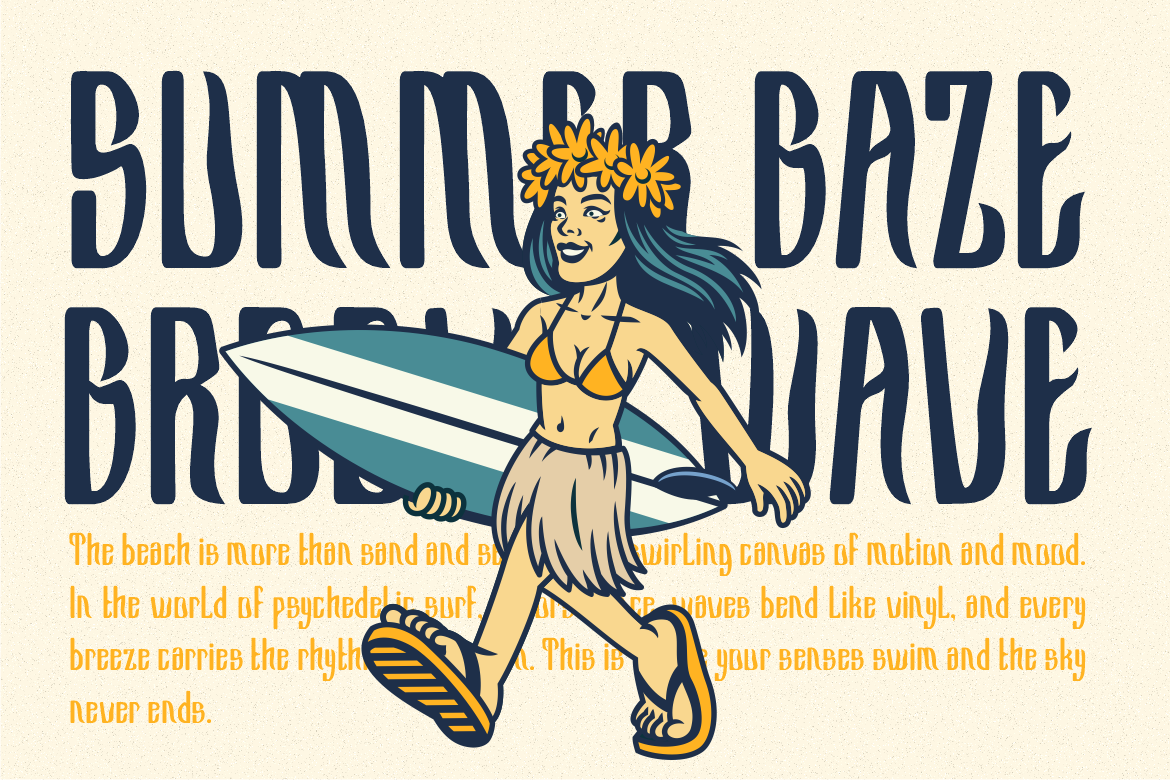
This groovy, wave-inspired script fits surf culture, festival invites, or beachwear.
Strengths: Bold curves, retro vibe, standout personality.
Limitations: Loses clarity at small sizes; too wild for formal uses.
Best suited for: T‑shirts, event posters, playful logos.
2. Retro Summer
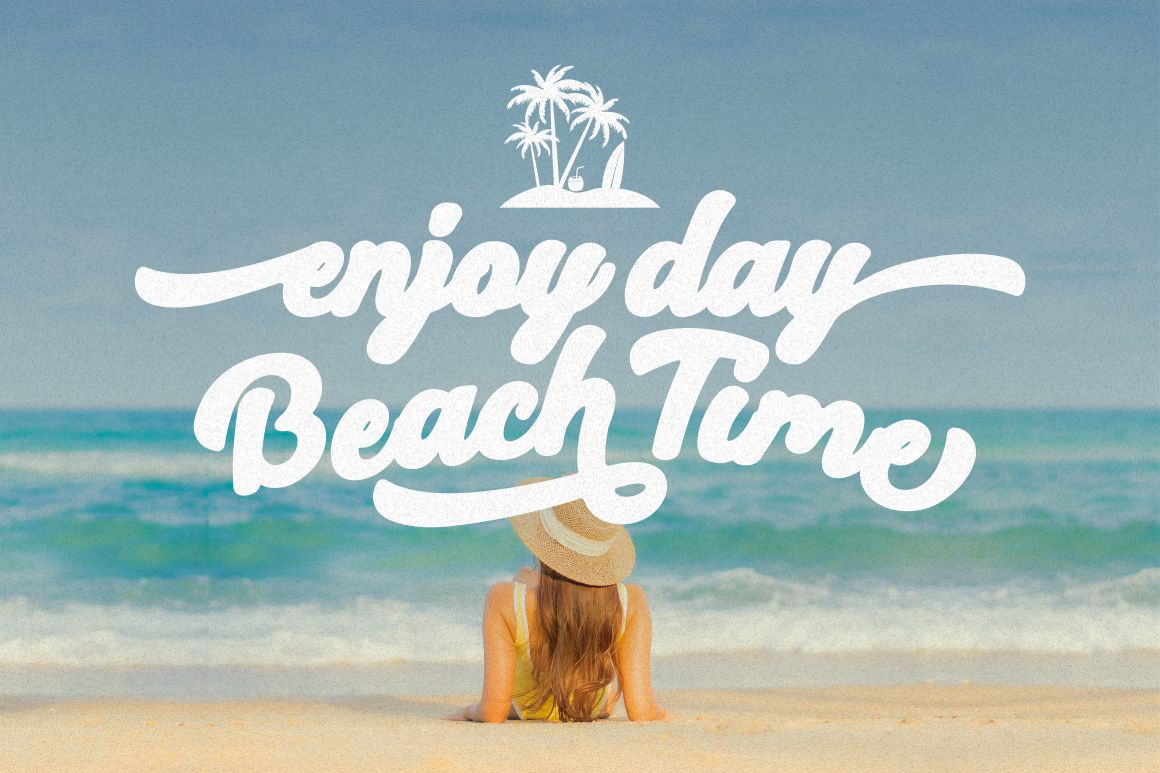
This vintage-style font channels 1970s summer ads.
Strengths: Nostalgic yet fresh; strong readability in mid-to-large sizes.
Limitations: May feel dated for modern brands.
Best suited for: Postcards, package labels, cafe menuscapes.
3. Summer Roadtrip (Retro Script)
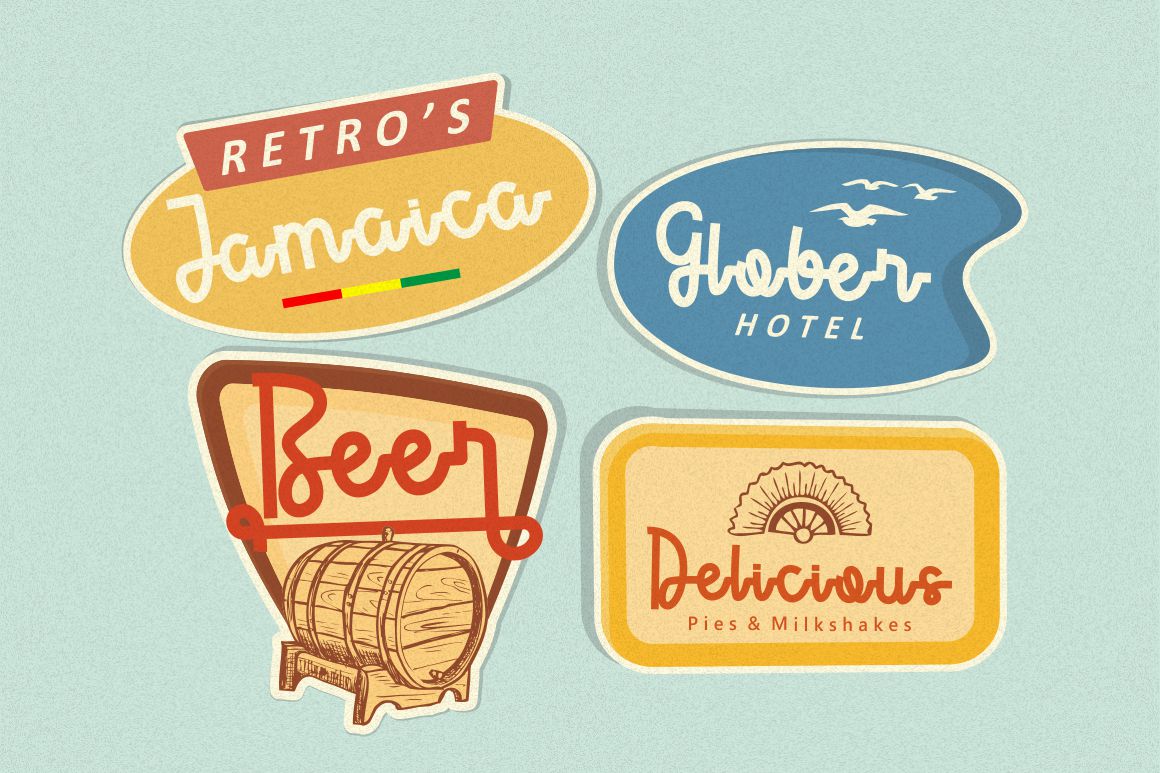
A friendly, cursive font with holiday vibes.
Strengths: Smooth flow, inviting tone, easy pairing with sans‑serif.
Limitations: Too decorative for body text; not ideal for serious designs.
Best suited for: Instagram captions, greeting cards, blog headers.
4. Sandy Toes (Quirky Summer)
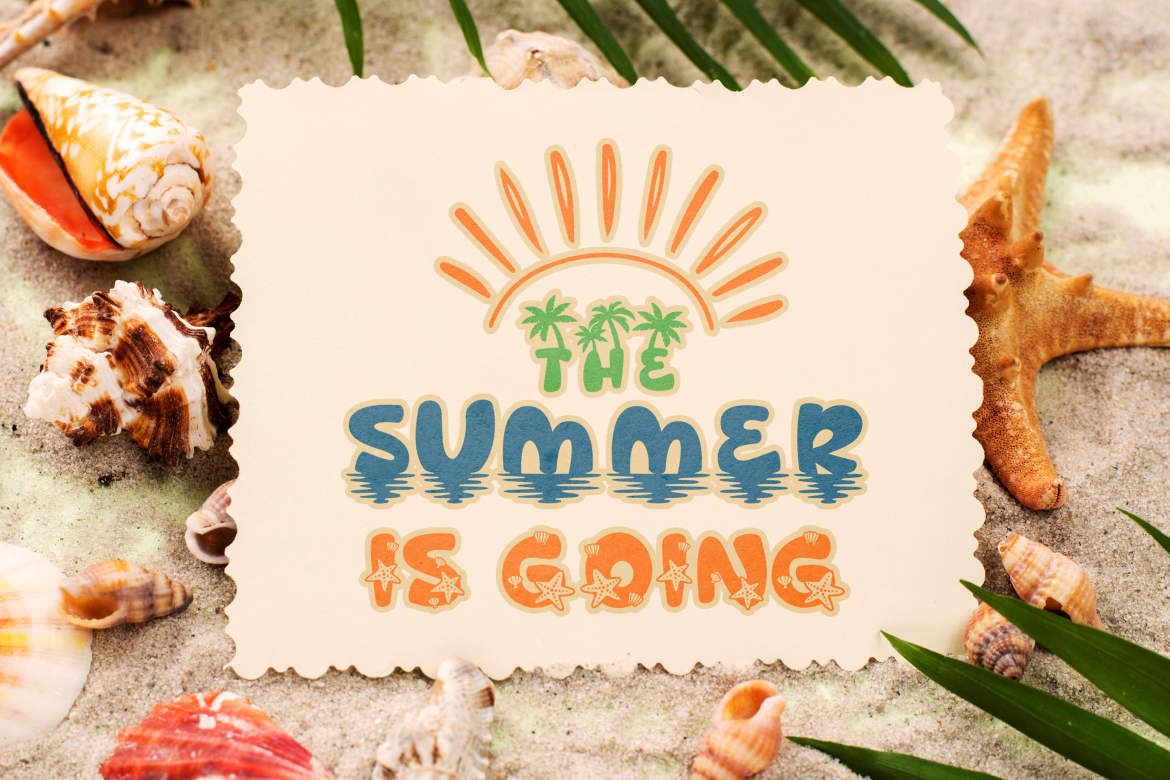
Rounded and fun, this font feels like sand between toes.
Strengths: Effortless cheerfulness, great at large sizes.
Limitations: May lack professionalism for corporate visuals.
Best suited for: Kids’ parties, beach events, informal banners.
5. Retro Rapture Duo
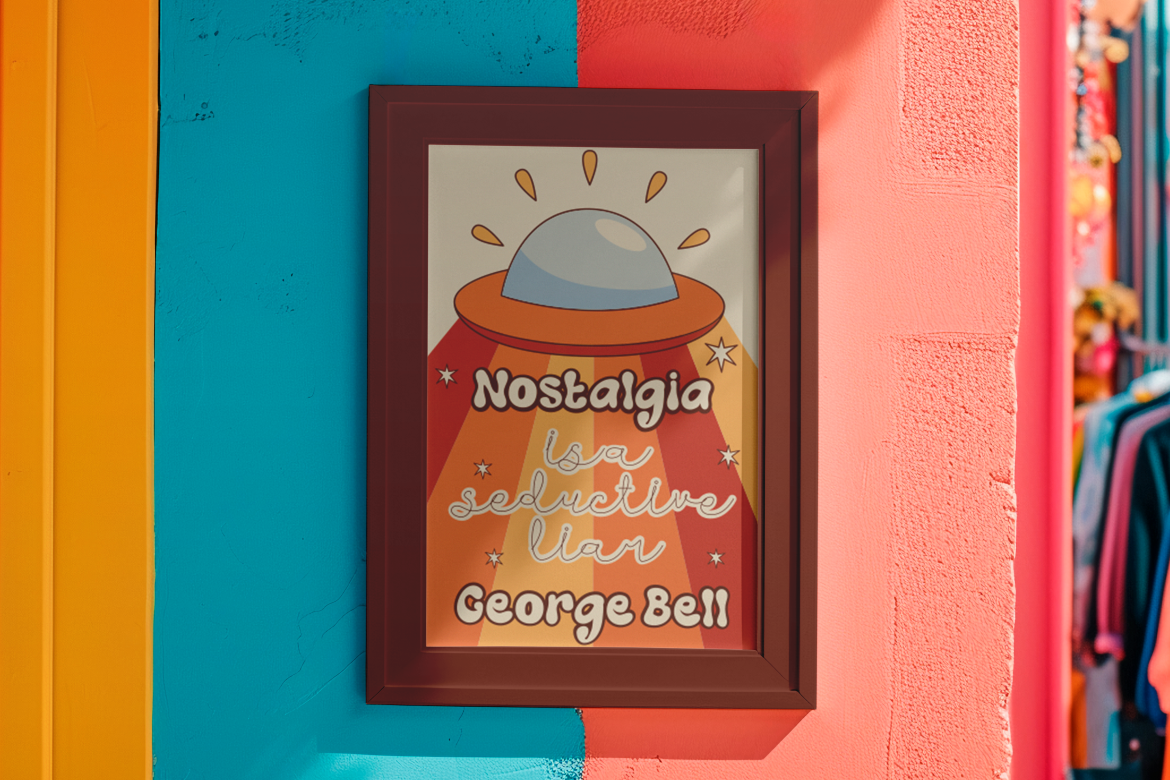
A paired family with an inline option.
Strengths: Flexible design pairing, bold yet classic.
Limitations: Inline style reduces legibility at small sizes.
Best suited for: Logos, packaging, headlines with contrast.
6. Faded Glory Duo
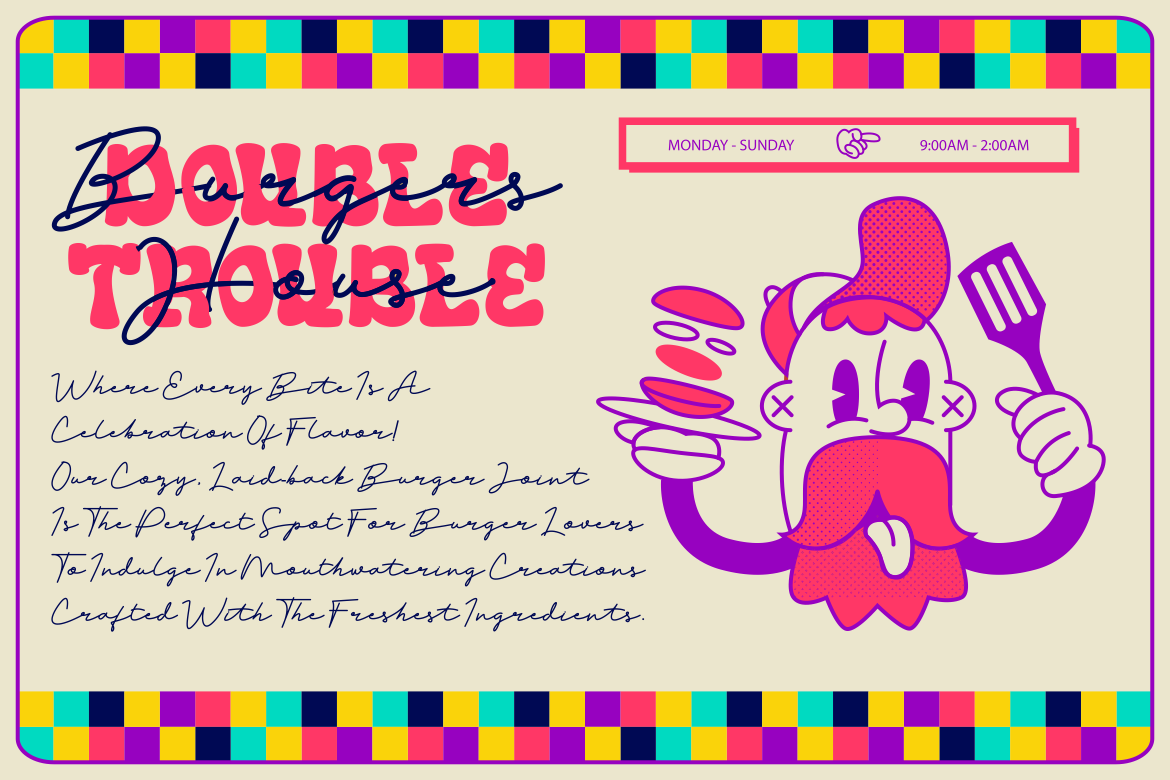
This duo blends bold lettering with soft shadows.
Strengths: Vintage charm meets modern design.
Limitations: May look cluttered when misused; needs careful spacing.
Best suited for: Posters, t‑shirts, retro ads.
7. Cozy Caps Duo
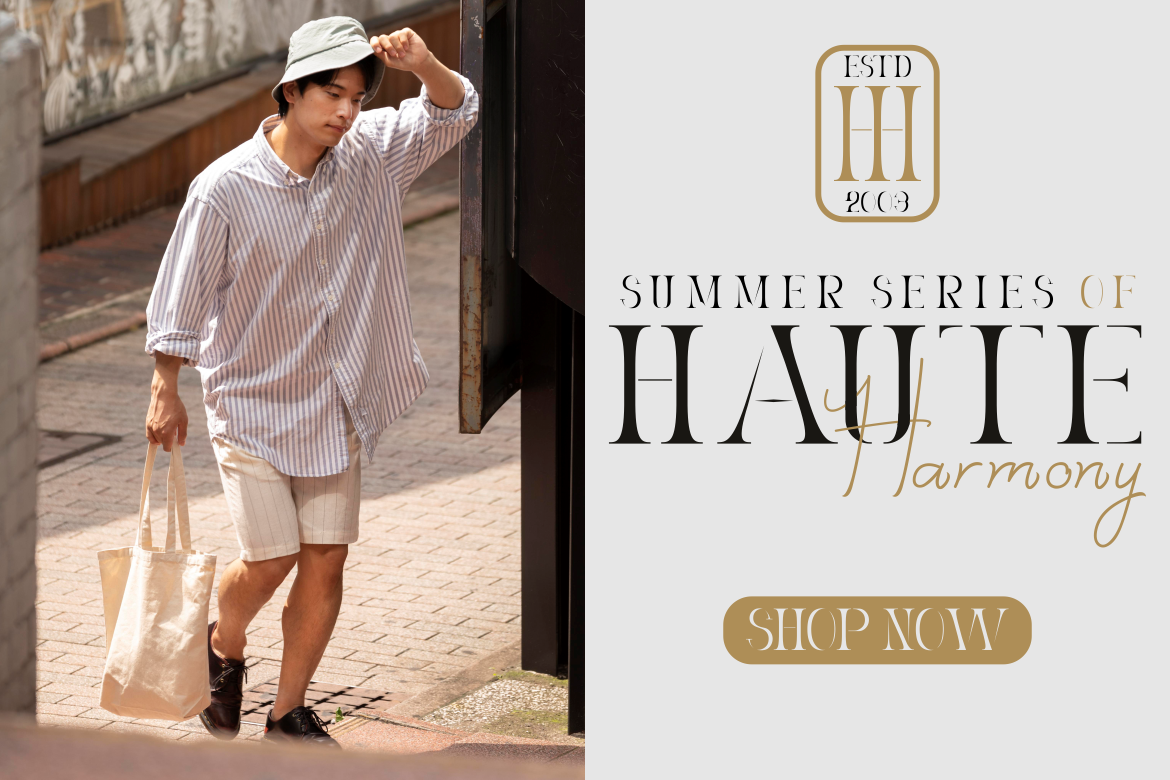
A chic, all-caps duo with elegance.
Strengths: Classy feel, high-end vibe.
Limitations: Too formal for casual summer visuals.
Best suited for: Premium packaging, refined branding, boutique signage.
8. Greatness Culture Stylish Duo
A modern stylized display font in two weights.
Strengths: Clean yet expressive; versatile.
Limitations: Could read as trendy; not timeless.
Best suited for: Social campaigns, headers, stylish merchandise.
9. Royal Bangkok Thailand
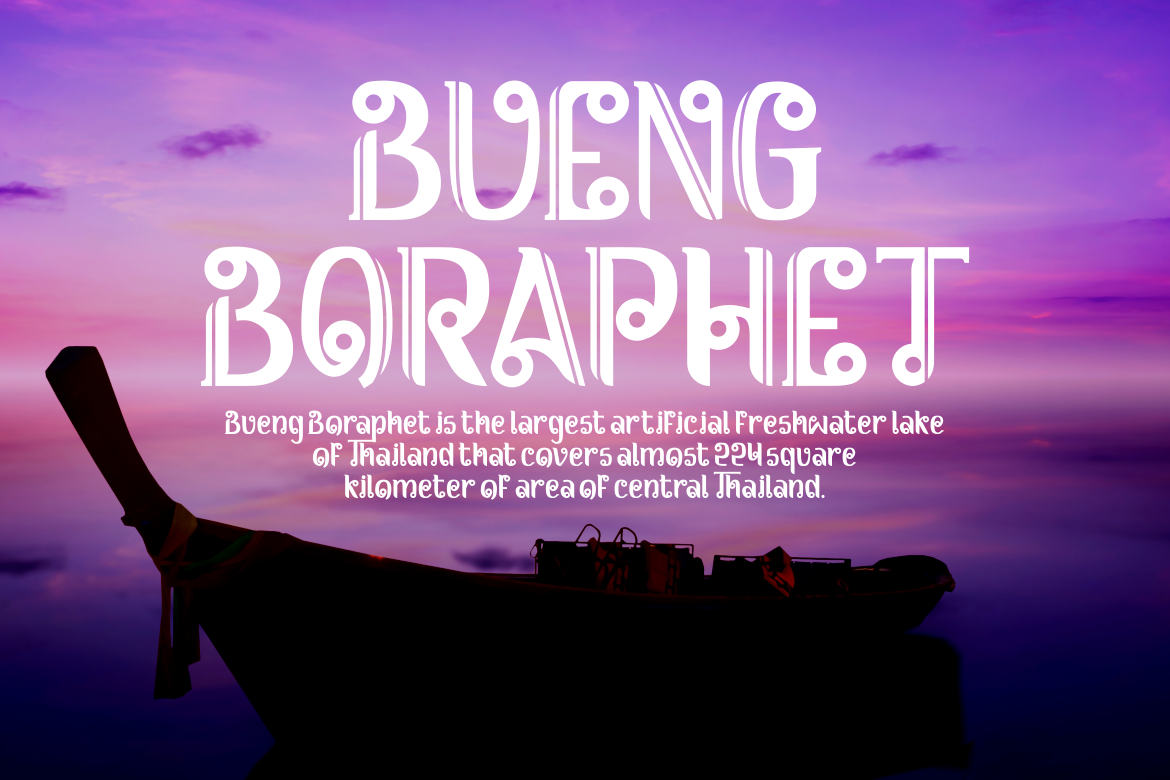
This font blends tropical flair with elegant flare.
Strengths: Cultural aesthetic, decorative details.
Limitations: Decorative elements may distract from legibility.
Best suited for: Travel branding, resort brochures, event invites.
10. Advait Sansekerta
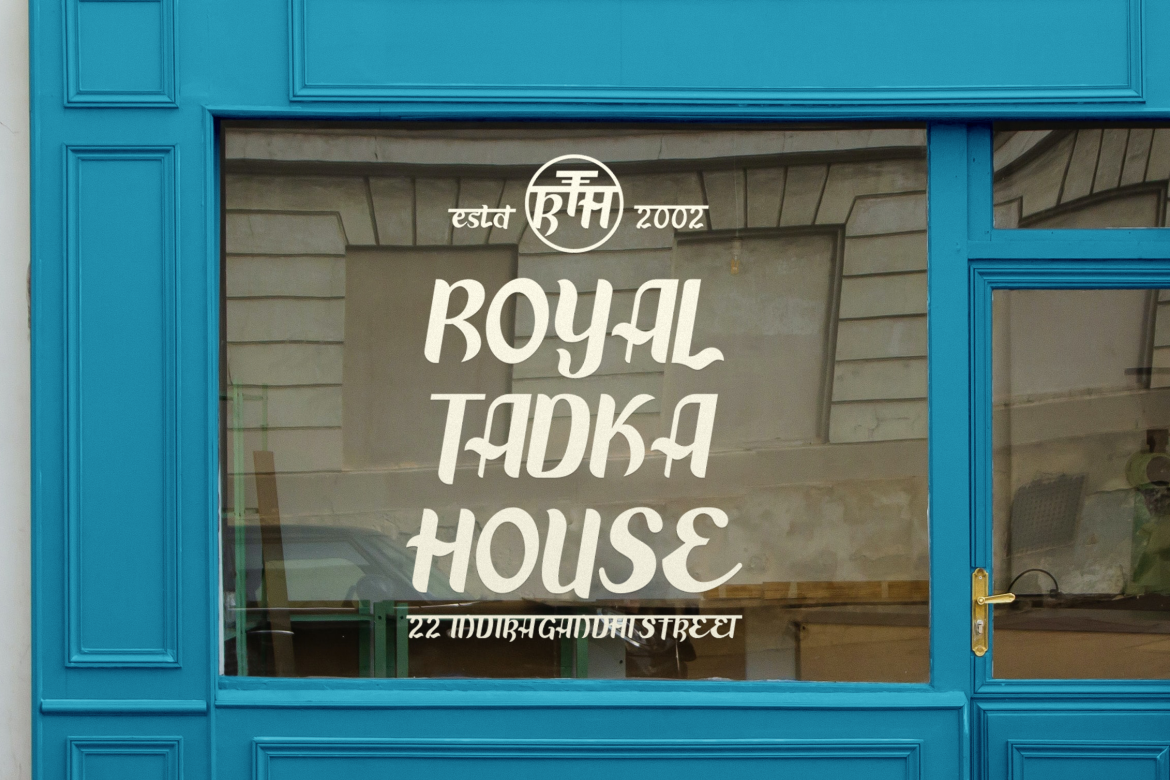
A font with Southeast-Asian flair.
Strengths: Unique character set, exotic mood.
Limitations: Might feel niche for general audiences.
Best suited for: Cultural products, beach retreats, spiritual brands.
11. Sailing Scribe Pirate
This font brings pirate-themed adventure.
Strengths: Dramatic style; fits nautical themes.
Limitations: Too stylized for generic branding.
Best suited for: Event posters, kids’ parties, themed campaigns.
Choosing the Best Summer‑Themed Fonts
When selecting from these 11 summer-themed fonts, match the font to your message. Retro styles suit nostalgia. Quirky handwritten fonts evoke carefree days. Elegant duos work for premium packaging. Tropical or pirate-style fonts add narrative fun. Always test the font in real-use scenarios: packaging mockups, social templates, print layouts.
Combine one catchy summer font with a simple sans-serif body text. Ensure spacing, color contrast, and sizing support readability. And if you use animated tools like Canva or After Effects, lively fonts like Funkies Surfer or Sandy Toes shine with simple movements.
The Value of Seasonal Typography
Summer-themed fonts do more than decorate they set tone and mood. They can make your designs feel joyful, friendly, and memorable. They connect audiences to vacation memories, beach vibes, and relaxed moods. In a fast-moving digital world, that emotional hook is powerful.
By choosing one of these 11 summer fonts, you add more than style. You add a seasonal story. That’s why fonts matter.